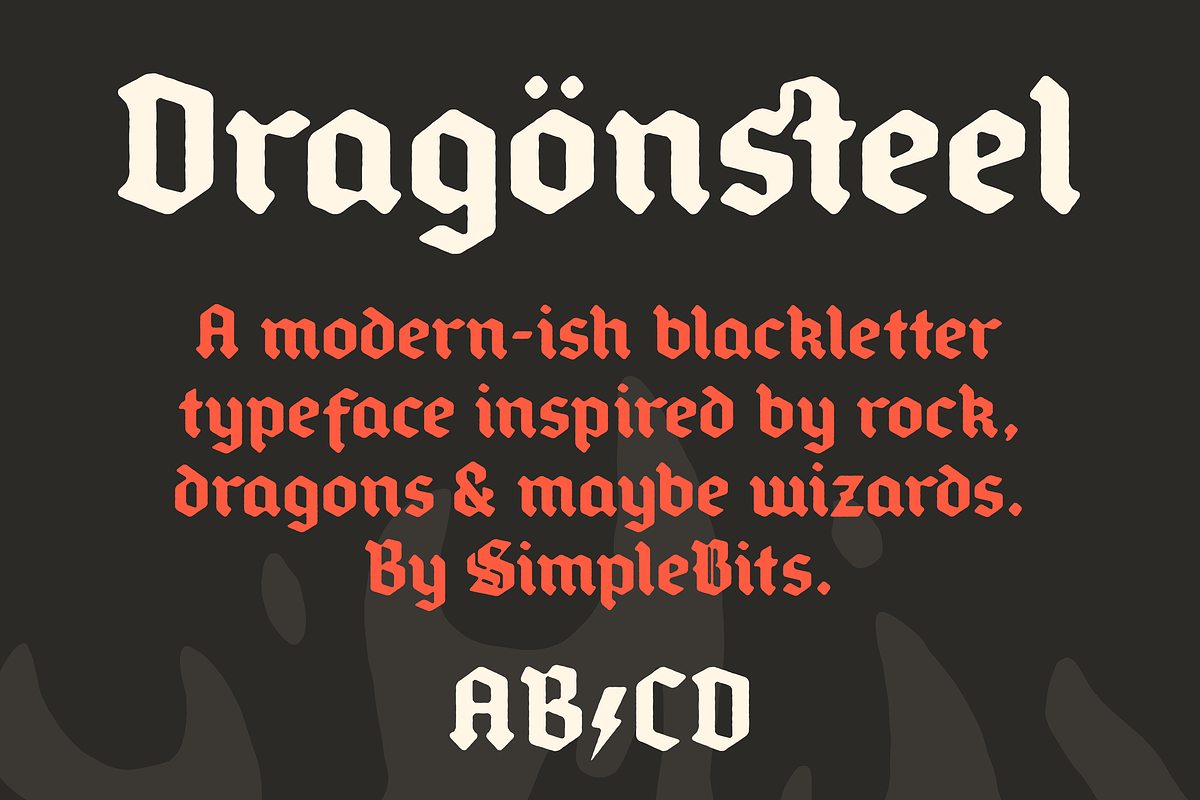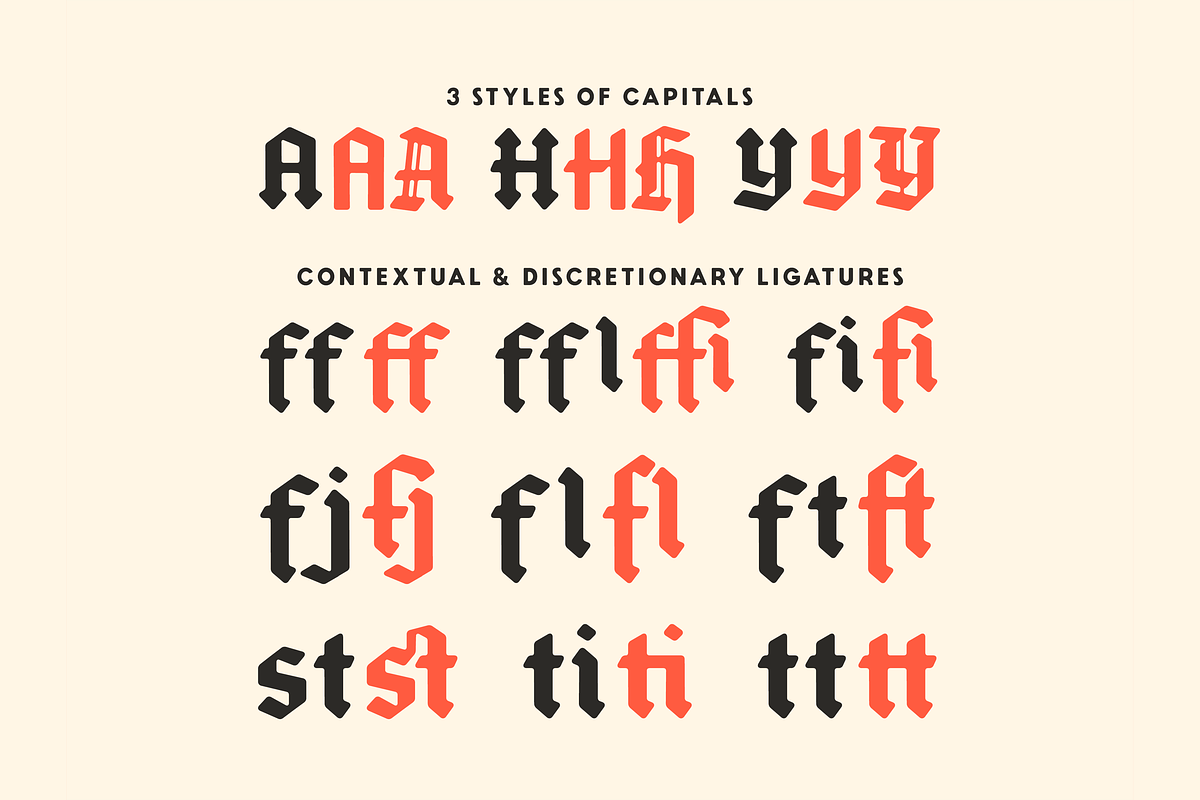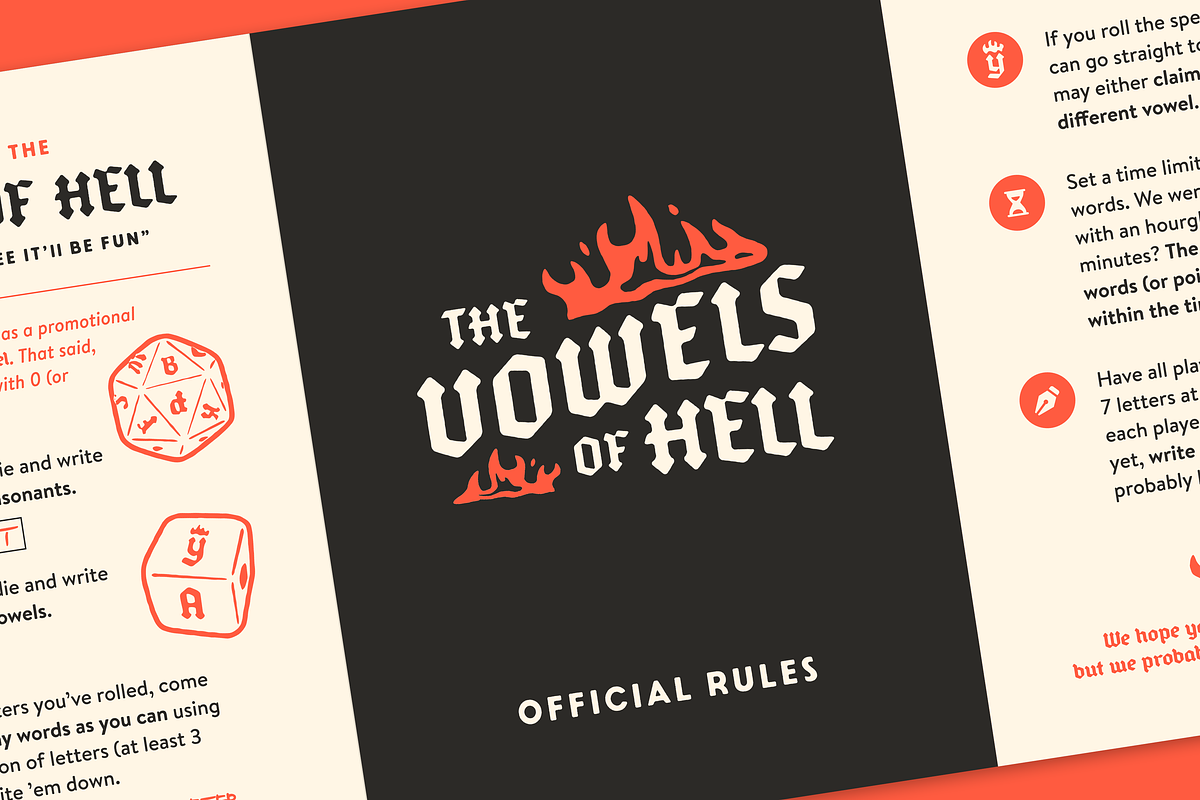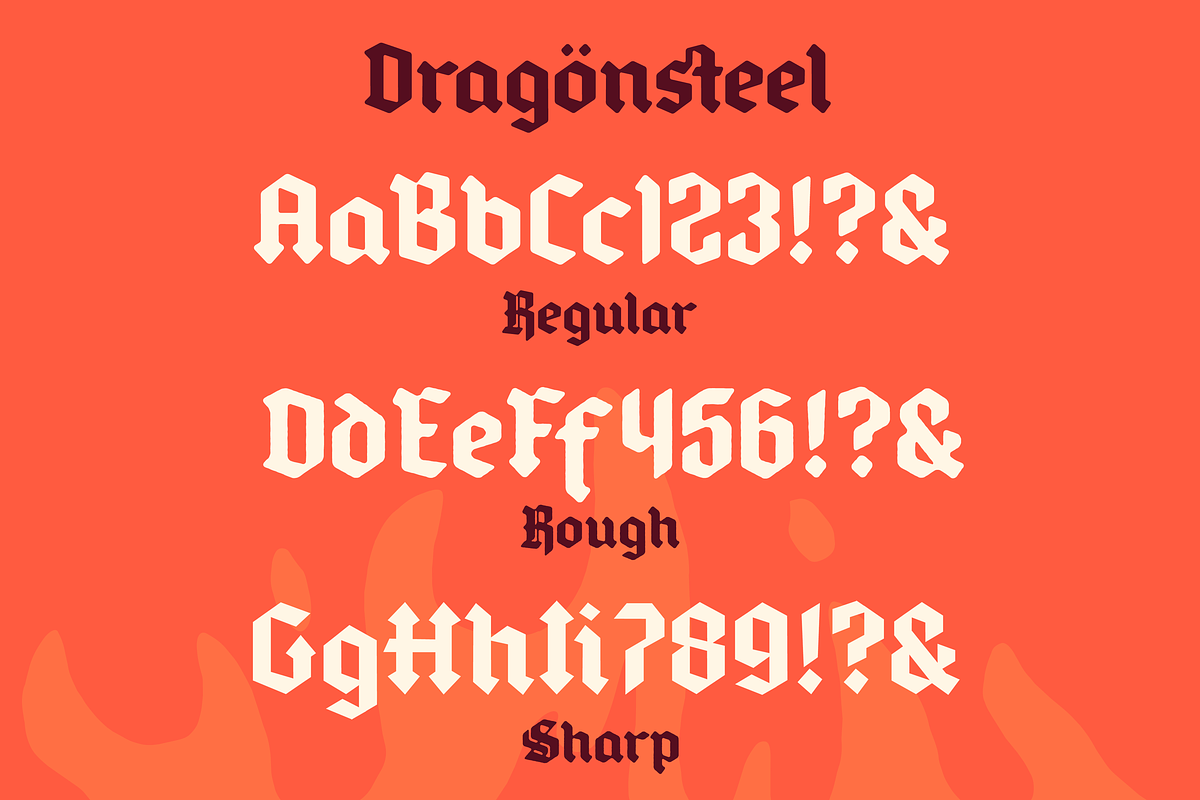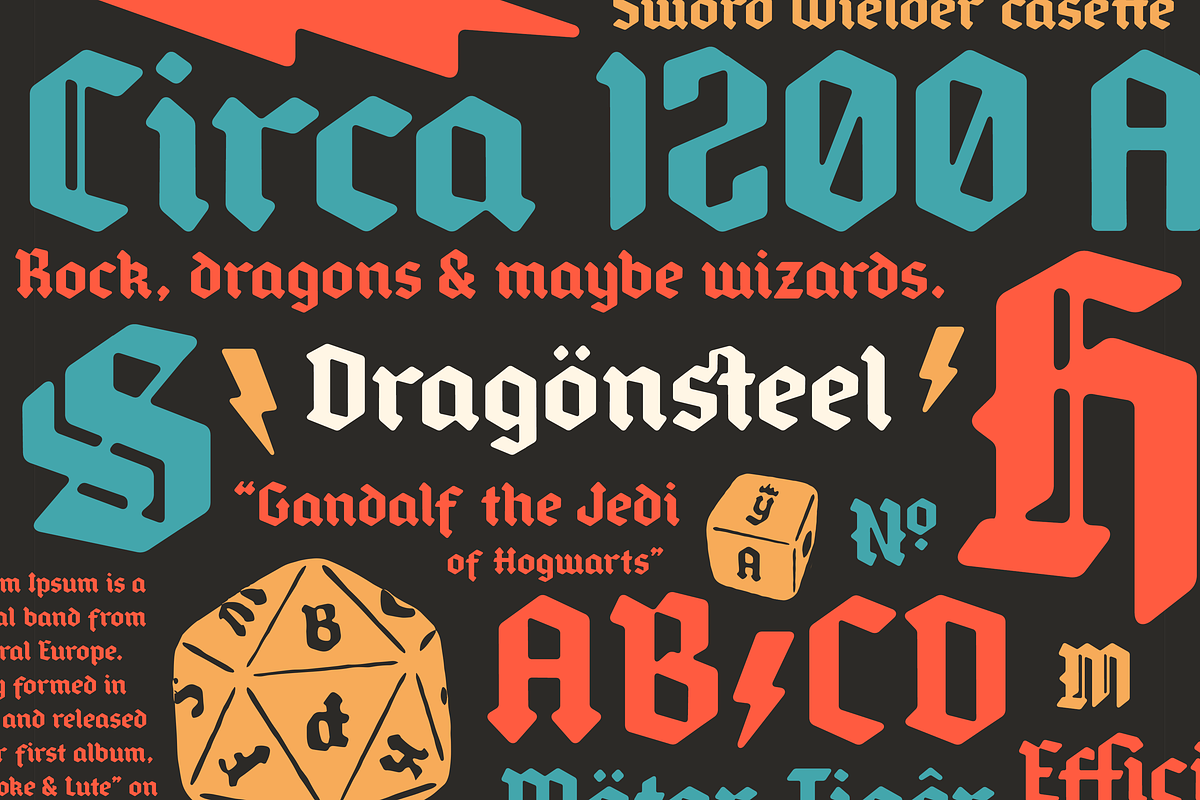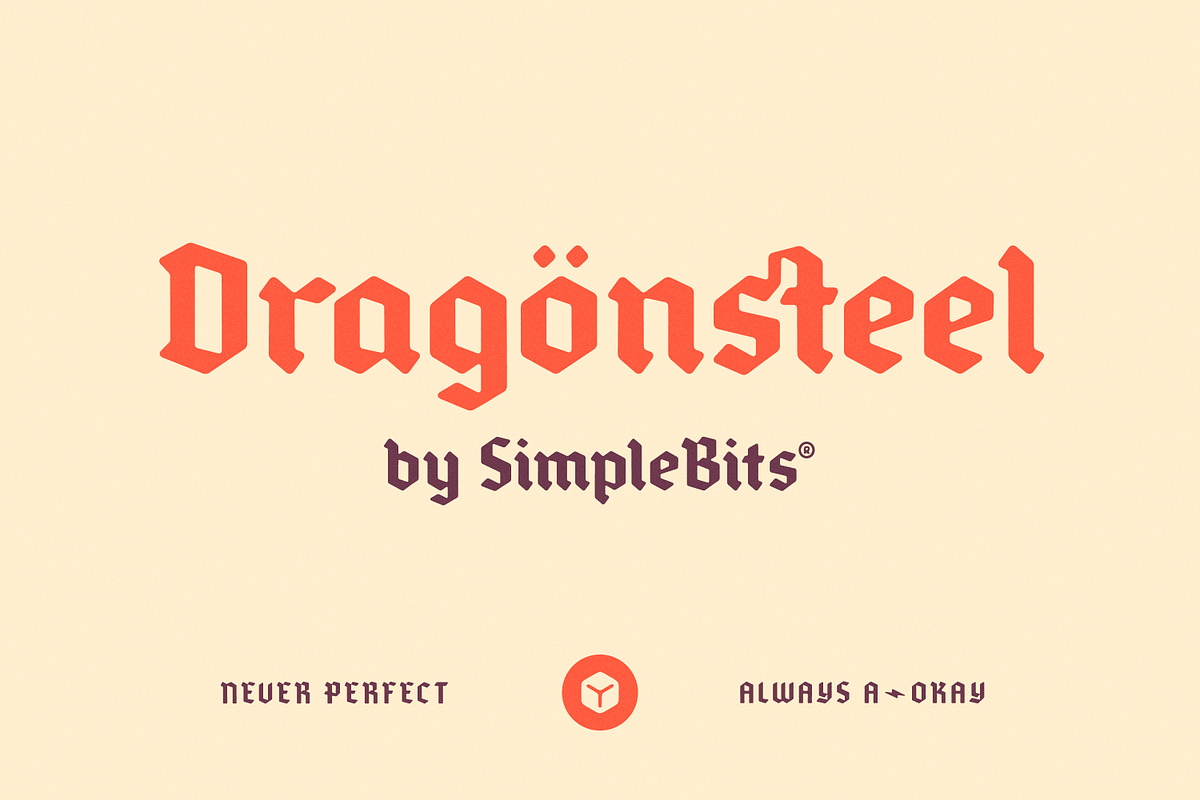
Dragönsteel — Modern-ish blackletter
Inspired by heavy metal logos, 1980s role-playing games, and maybe dragons and dusty, leather-bound books, Dragönsteel is our take on a modern-ish blackletter typeface. Guided by the way a broad nib pen would inform the letters—but taking liberties to add a bit of friendliness to an otherwise serious style of type.
We even made a dice word game—Vowels of Hell—to showcase the letters of the font.
Included are three styles: Regular, Rough, and Sharp. Uppercase, lowercase, numerals, accented characters for expanded language support, punctuation, plus a few alternate glyphs, ligatures, and three styles of capitals. Make something cool!